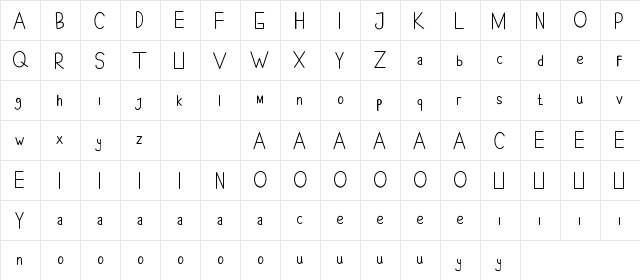
Cheeks Rosy Demo Regular
| Foundry | Edric Studio |
| Designer | Ali Alif Rahman & Suci anita |
Design Context for Cheeks Rosy Demo Typeface
Cheeks Rosy Demo offers clean, dependable letterforms without strong stylistic allegiance, making it a practical choice for designers who need flexibility.